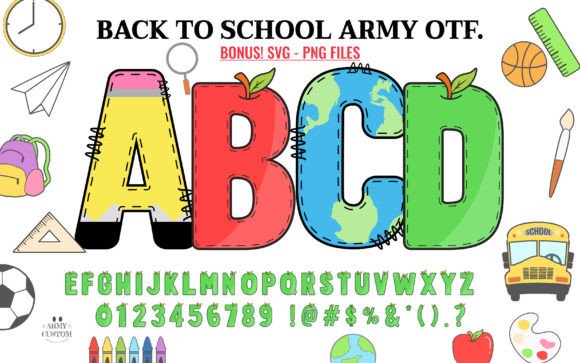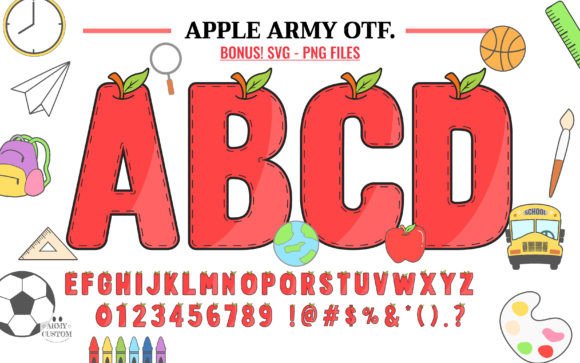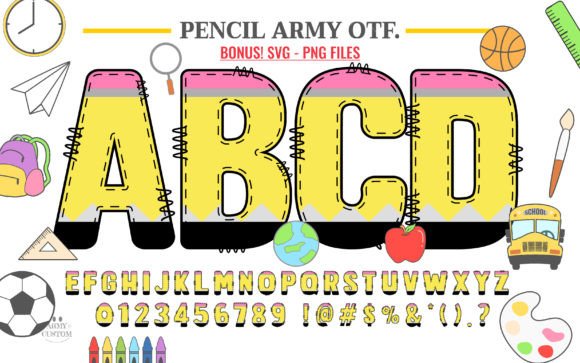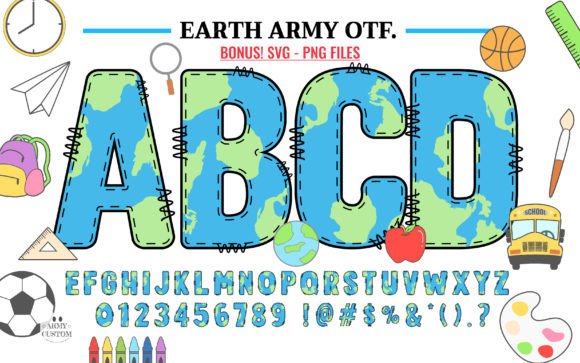
Back to School Army Font
About the Back to School Army Font
Meet Back to School Army Font, a stunning font that brings a touch of elegance and professionalism to any design. Back to School Army Alphabet is a cool and useful color font. Add it to your creative projects and you will definitely make an impact!